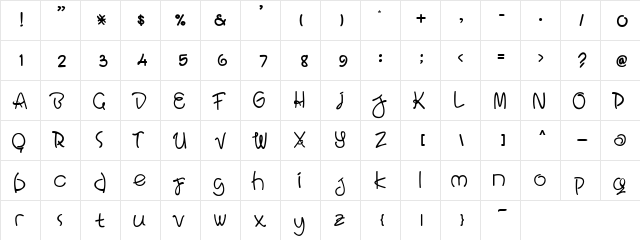
Bali Paradiso Regular
Design Context for Bali Paradiso Typeface
Bali Paradiso offers clean, dependable letterforms without strong stylistic allegiance, making it a practical choice for designers who need flexibility.
Pro Tip: Use Bali Paradiso in both headline and body roles to test its range before committing to a single application.